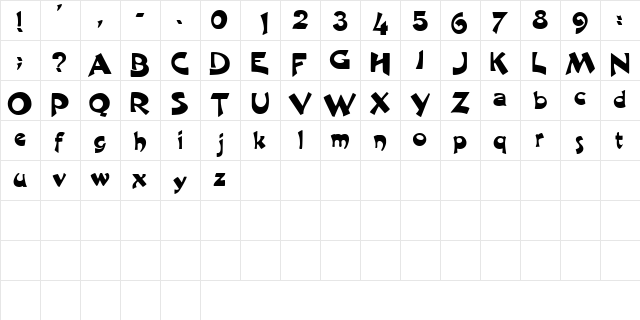
LoopholeDisplaySSK Regular
Design Context for LoopholeDisplaySSK Typeface
LoopholeDisplaySSK is built around its visual character rather than neutral utility — its distinctive forms are designed to make an impression at display sizes.
Font Pairing: Pair with a clean neutral sans-serif for body copy to let LoopholeDisplaySSK's character lead without overwhelming the composition.
Pro Tip: Treat LoopholeDisplaySSK as the centrepiece of your typographic hierarchy. One strong heading set in a decorative face can carry an entire layout.